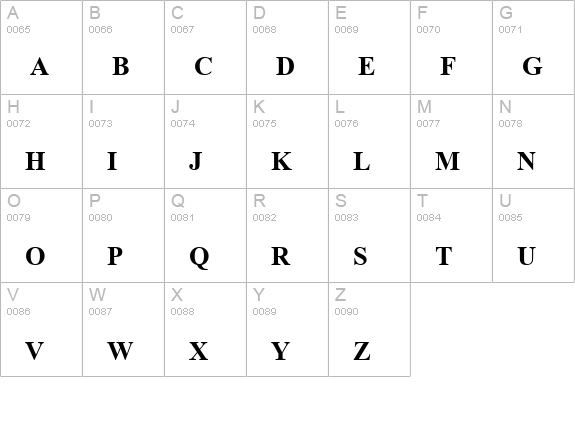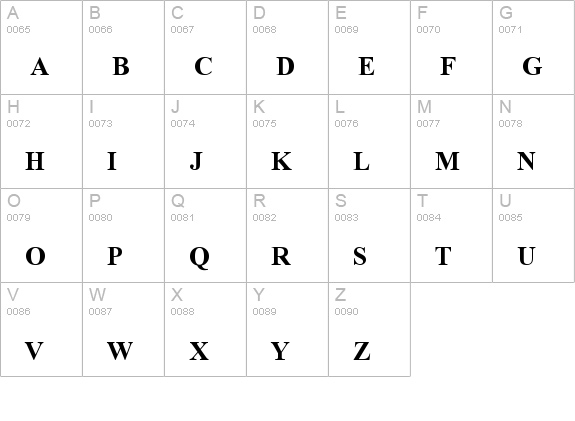
AngsanaUPC Bold Font Details
AngsanaUPC Bold is a strong, high-contrast variant in the AngsanaUPC typeface family \xE2\x80\x94 well suited to headlines, attention-grabbing titles, and strong calls-to-action.
AngsanaUPC Bold font is a versatile and eye-catching typeface that exudes strength and modernity. Its bold and robust design makes it perfect for headlines, logos, and other prominent text elements. The sharp edges and clean lines of AngsanaUPC Bold give it a contemporary and professional look that is sure to make a statement. What sets AngsanaUPC Bold font apart is not only its striking appearance but also its accessibility. This font is available for free download at FontsMarket.com, making it easy for designers, creatives, and enthusiasts alike to incorporate it into their projects without any cost. With AngsanaUPC Bold font, you can add a touch of boldness and sophistication to your designs effortlessly.